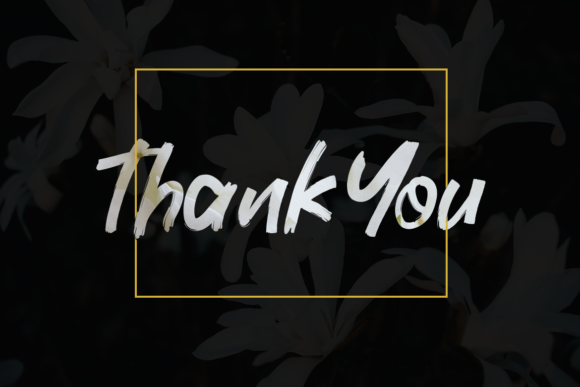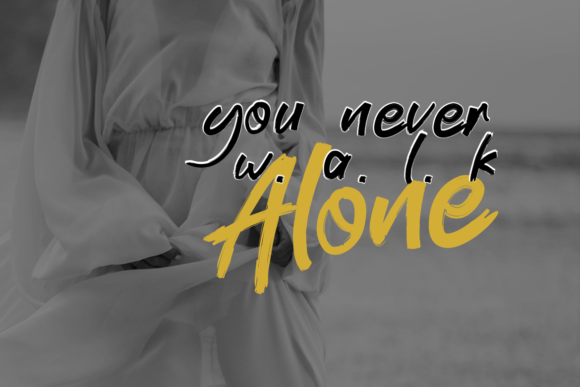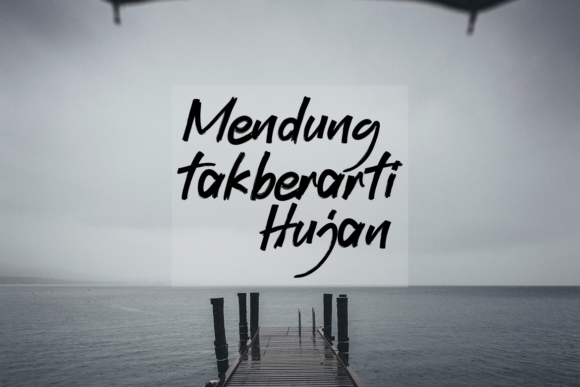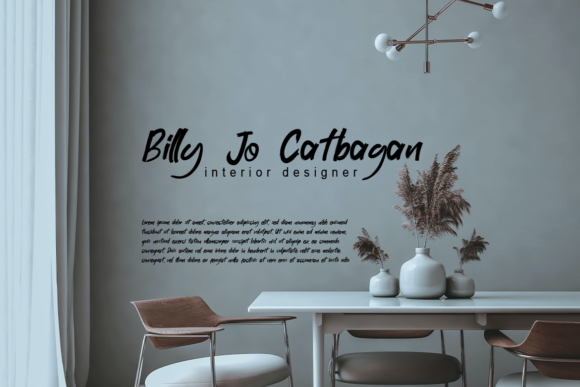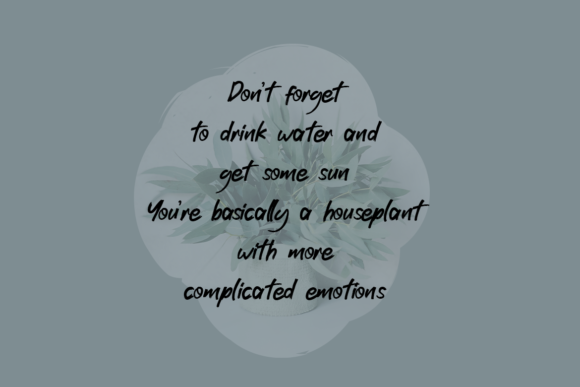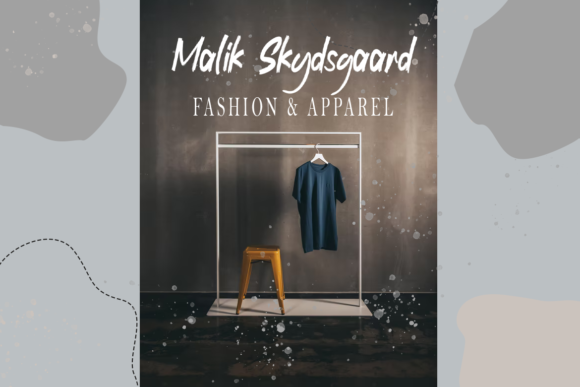
Jasmine Font
About Jasmine Font
Jasmine is a cool, brushed handwritten font. Whimsical and a bit quirky, this font will brighten up each of your designs. Add it confidently to your projects, and you will love the results.